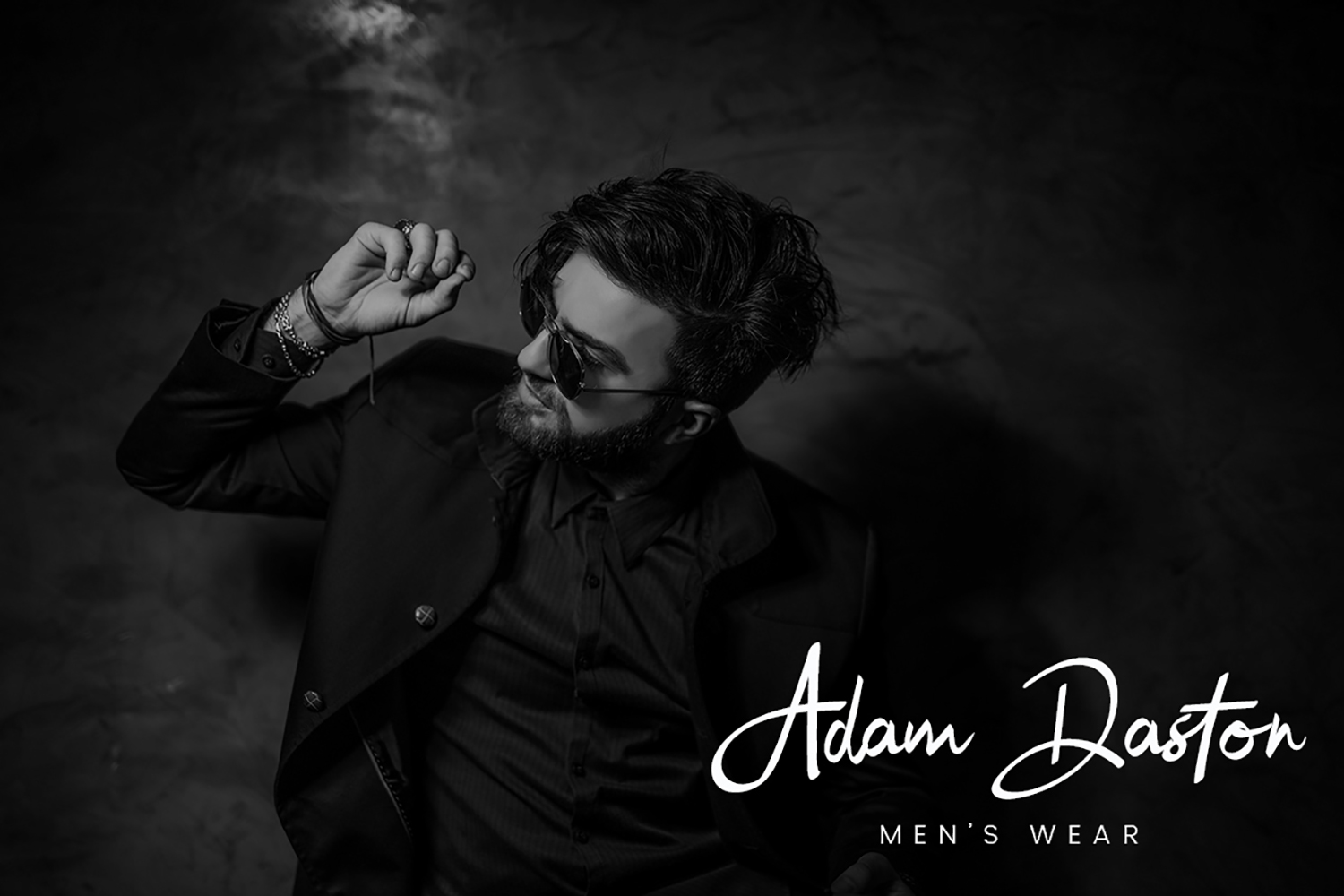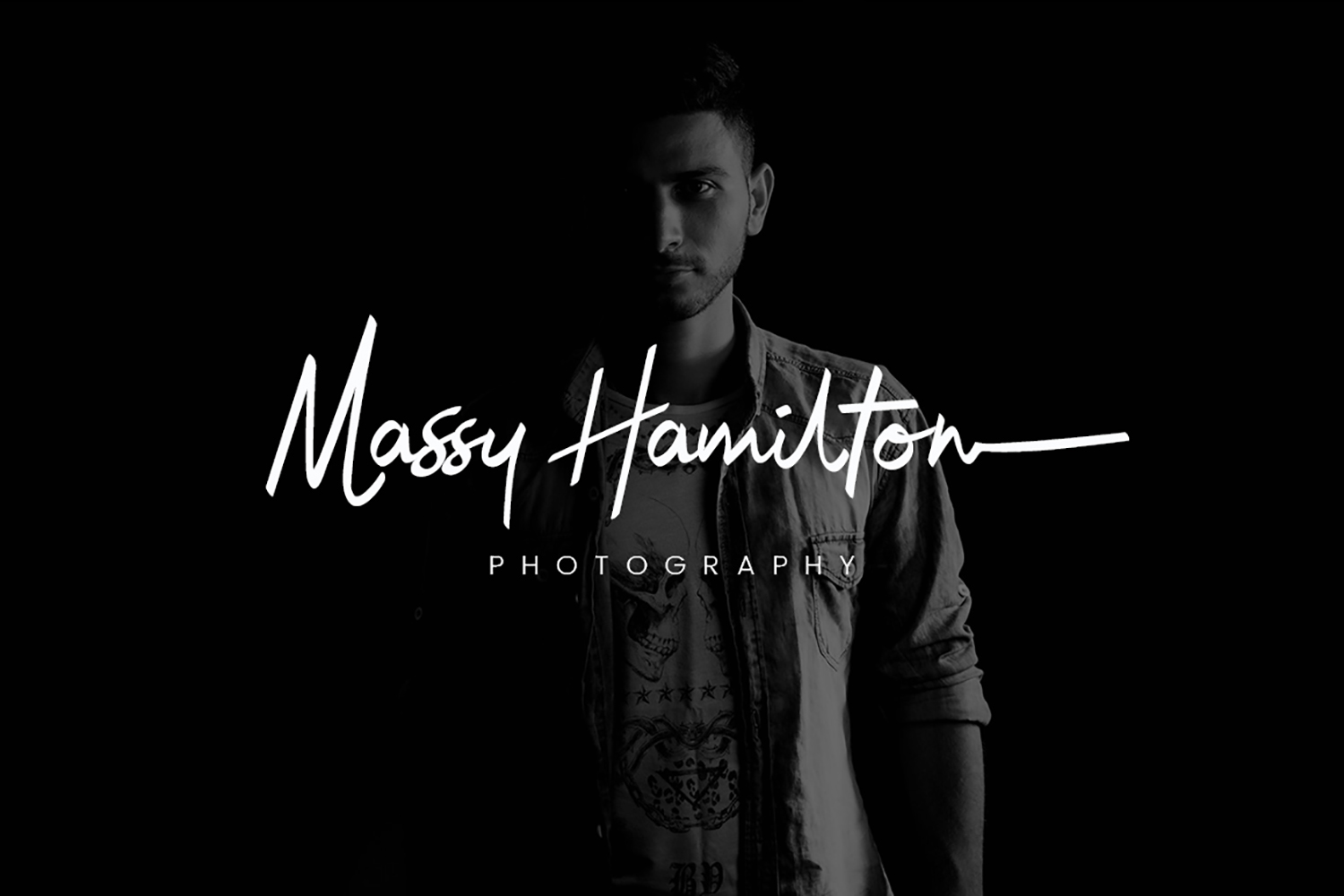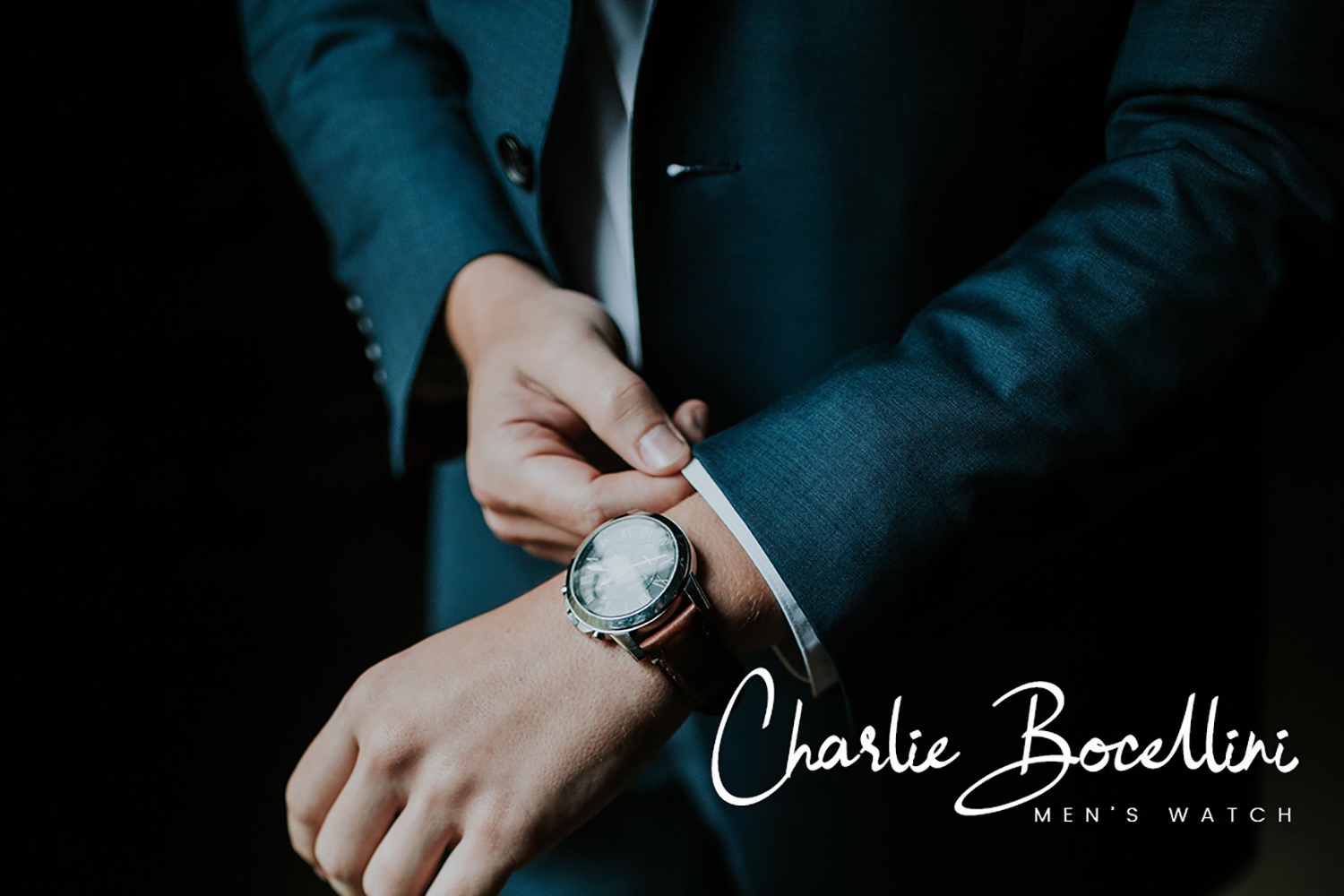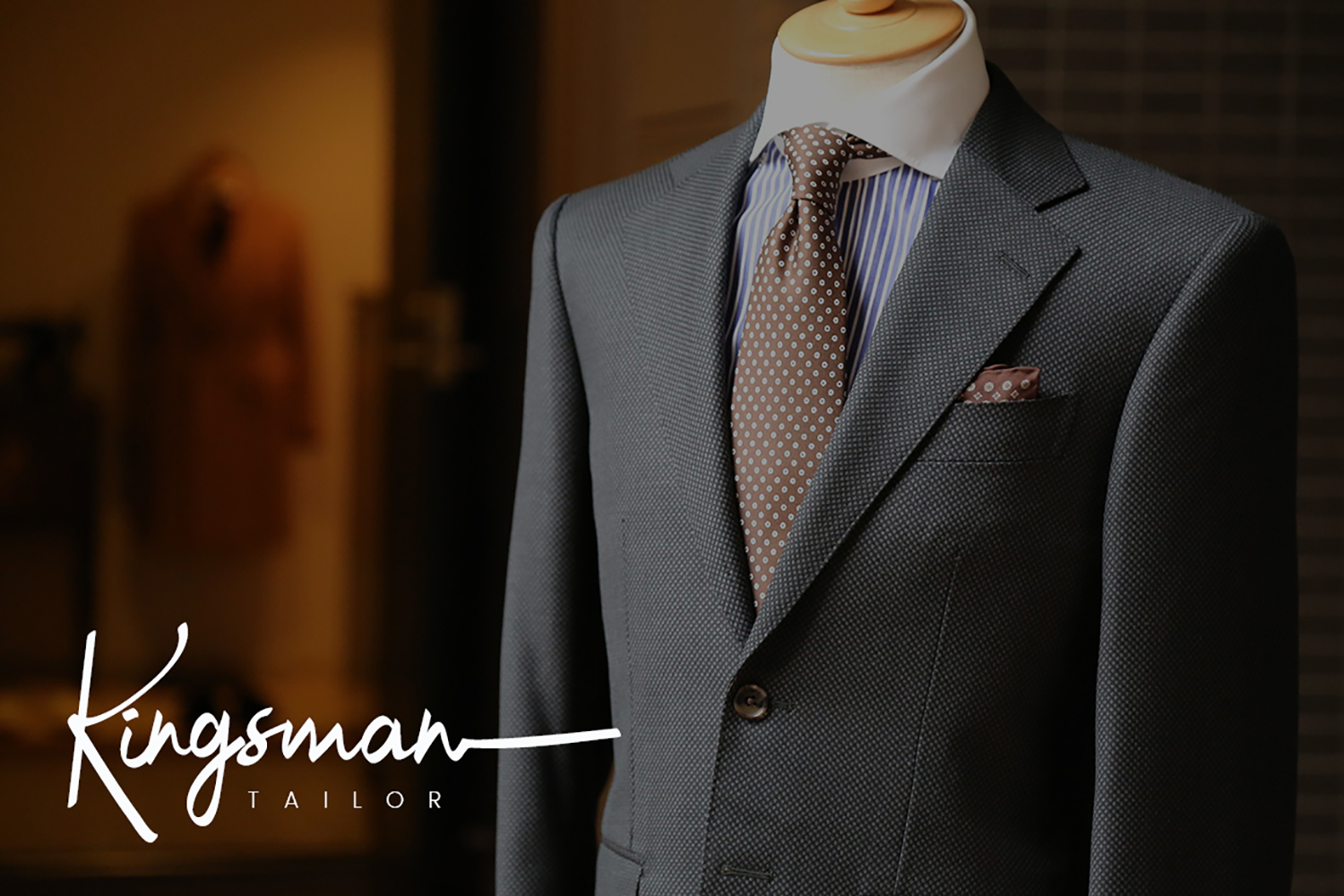
Bulgatti Luxury Free Font
Bulgatti Luxury Free Font with a sophisticated style. Inspired by branded and luxury stuff make this font looks classy and awesome in anyways to your latest project.
Bulgatti is perfect for photography, watermark, social media posts, advertisements, logos & branding, invitation, product designs, label, stationery, wedding designs, product packaging, special events or anything that need handwriting taste. This free typeface was designed by a talented Creatype Studio. If you like it don’t forget to check out the full version.